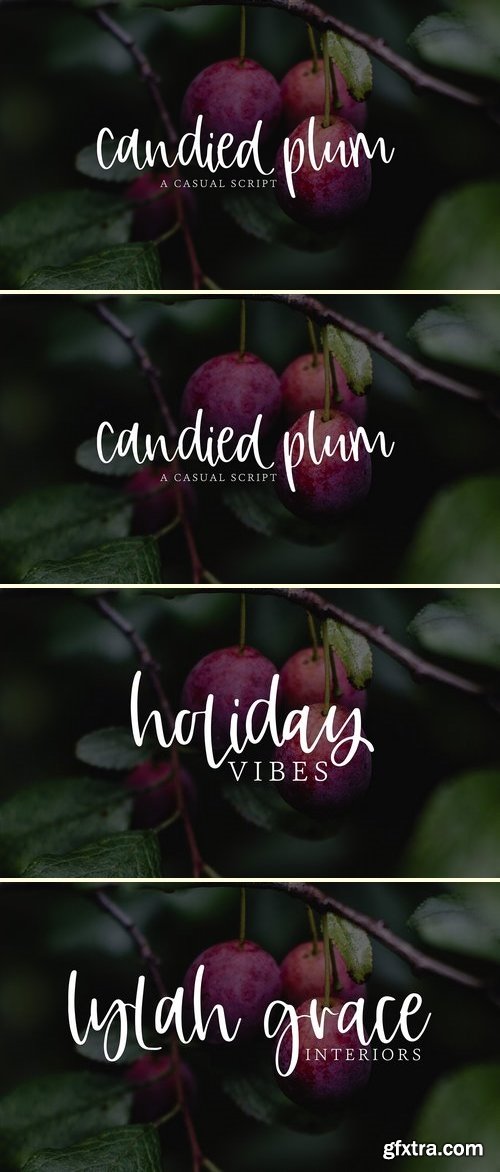
CM - Candied Plum 2924797
A casual script from OTSS, Candied Plum mixes a little bit of print and a little bit of script for a unique font for your projects!